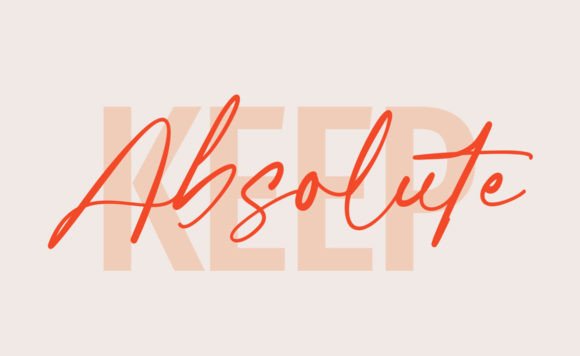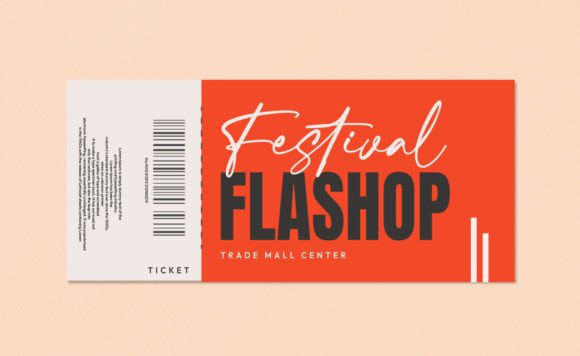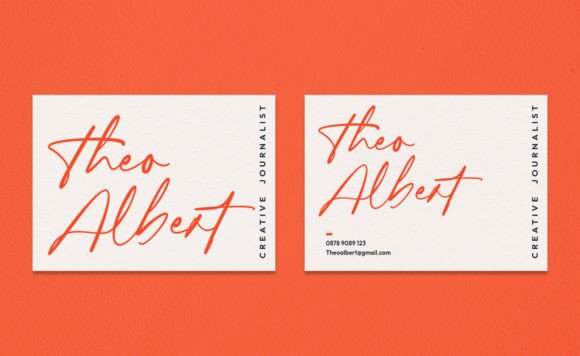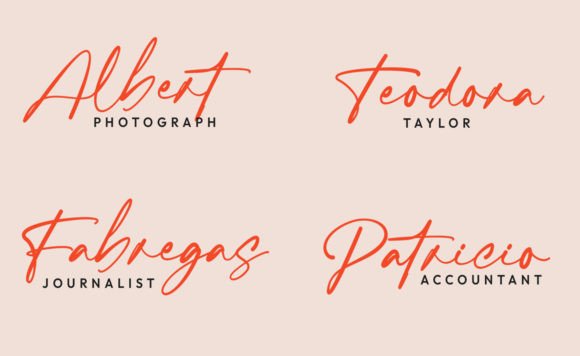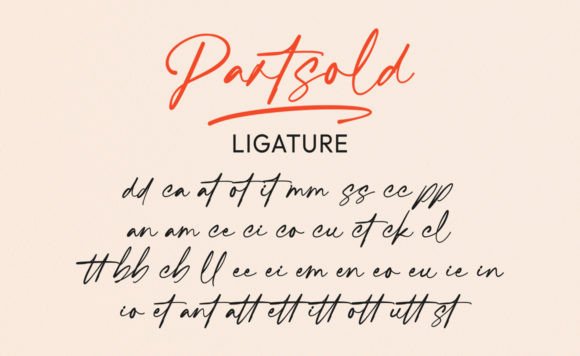
Partsold Font
About Partsold Font
Introducing Partsold, a modern styled font designed to evoke a sense of natural and organic aesthetics. This font is crafted for brand logos and can be seamlessly integrated with sans or serif style fonts for a cohesive and contemporary design.
The charm of Partsold lies in its modern and organic design. The font is carefully crafted to convey a sense of sophistication while maintaining a natural and approachable feel. Whether used in brand logos or in collaboration with other fonts, Partsold is versatile and adaptable to various design contexts.
For brand logos, Partsold offers a modern and distinctive option. Its clean and stylish design contributes to a memorable brand identity, making it suitable for a variety of industries and design styles.
When used in collaboration with sans or serif style fonts, Partsold creates a harmonious and balanced typographic composition. The font can serve as a complementary element, adding a touch of organic elegance to the overall design.
Partsold is designed to be versatile, making it suitable for a range of design applications. Whether you’re working on digital designs or print materials, this font is crafted to bring a contemporary and natural vibe to your projects.
In conclusion, Partsold is a modern styled font that embraces a natural and organic aesthetic. Choose Partsold for brand logos or in collaboration with sans or serif style fonts, creating visually appealing and cohesive designs for a variety of creative applications.